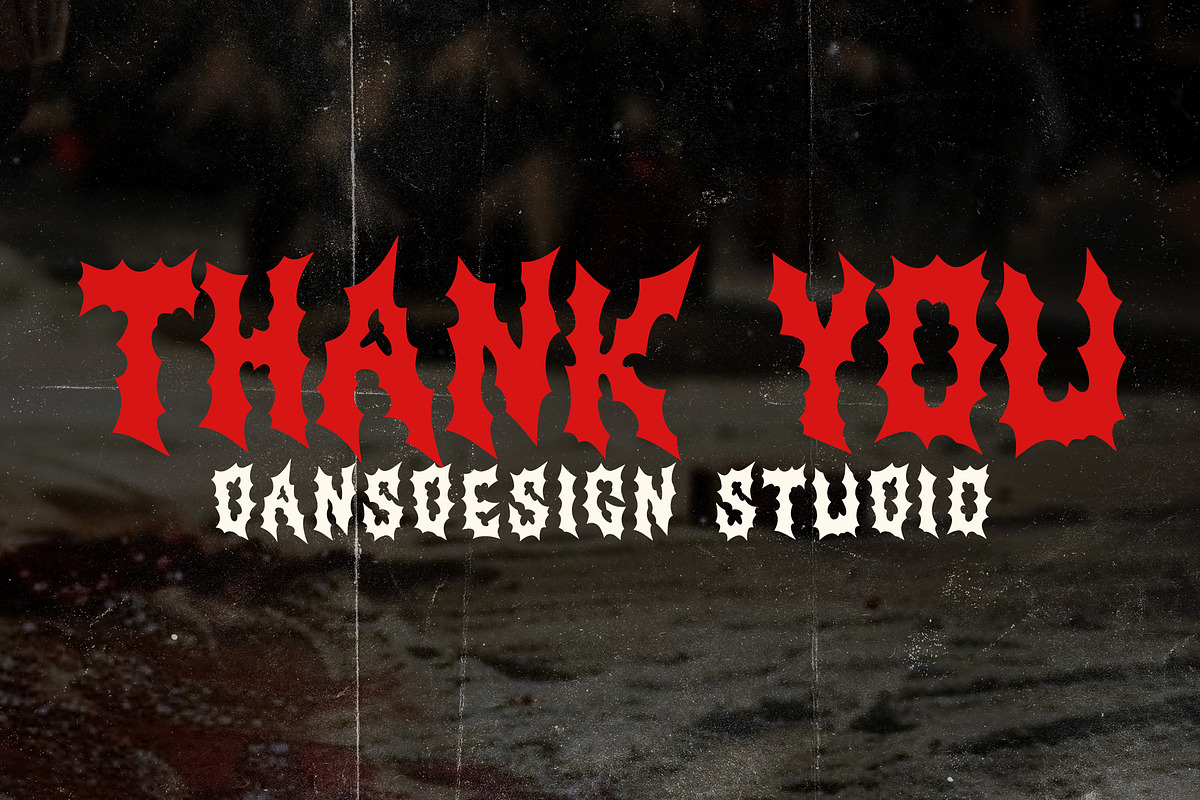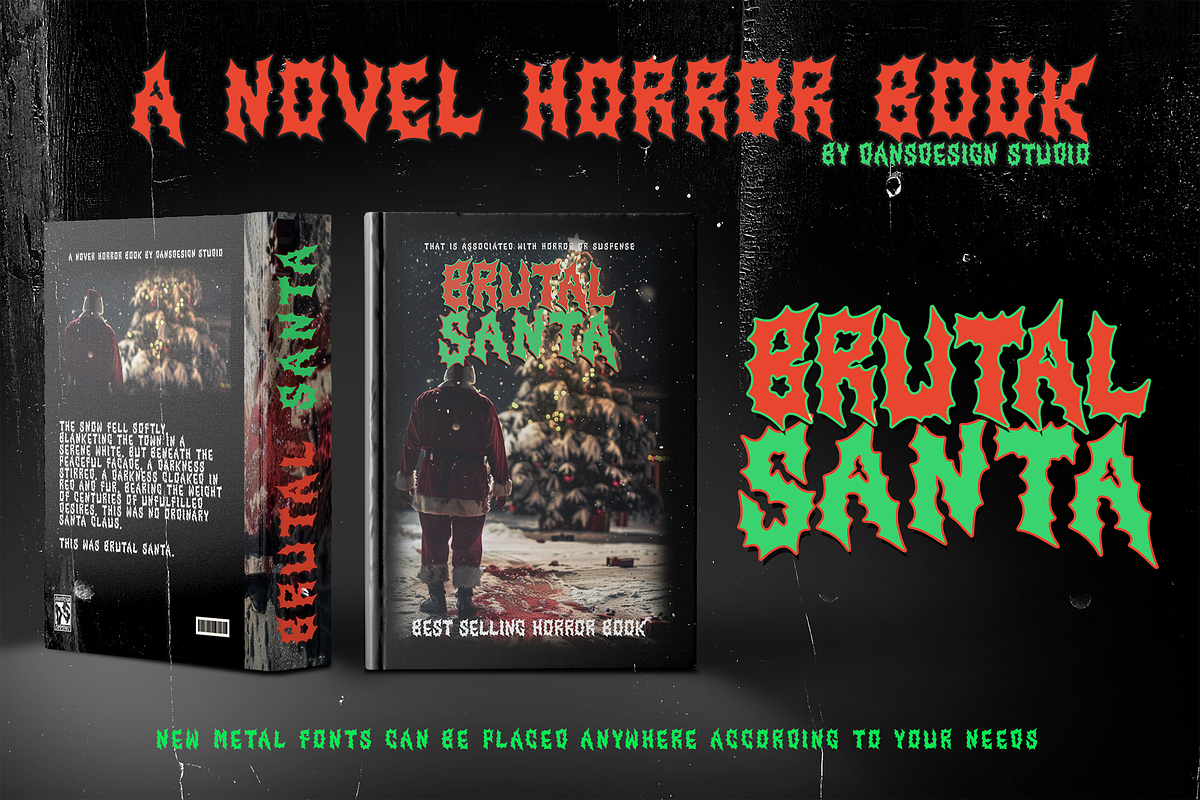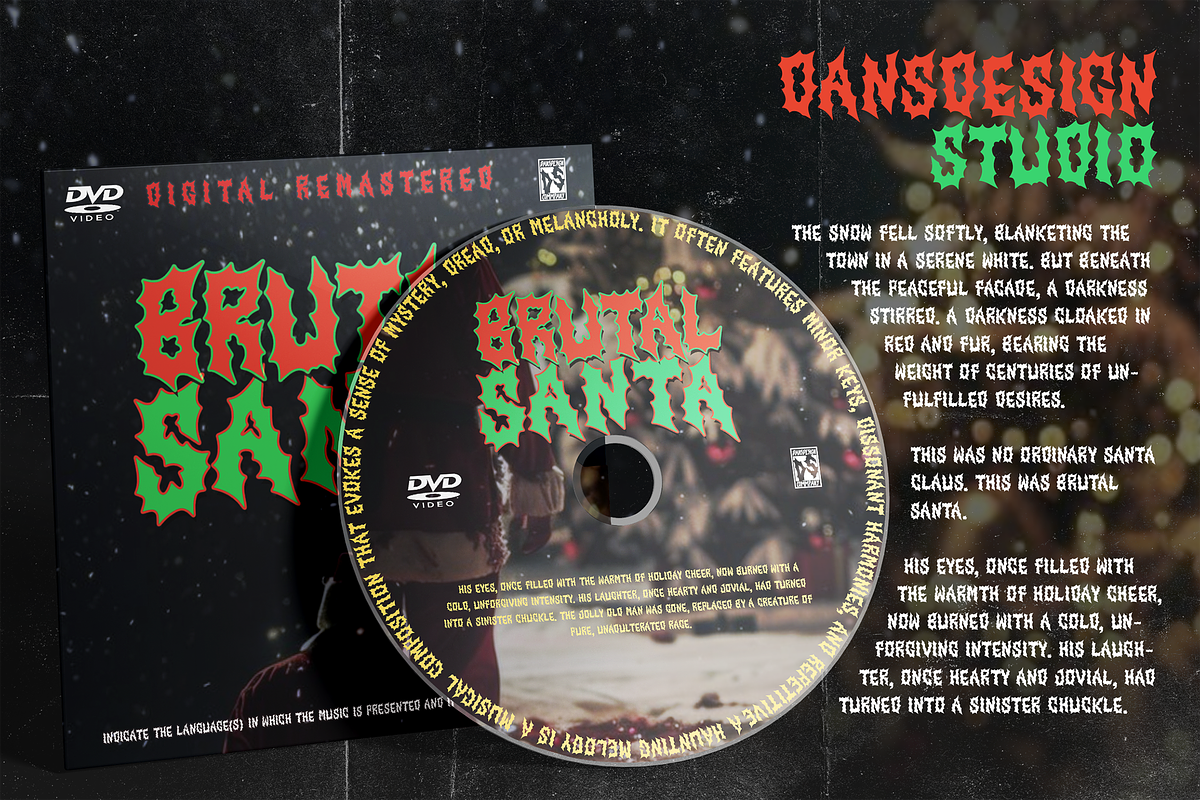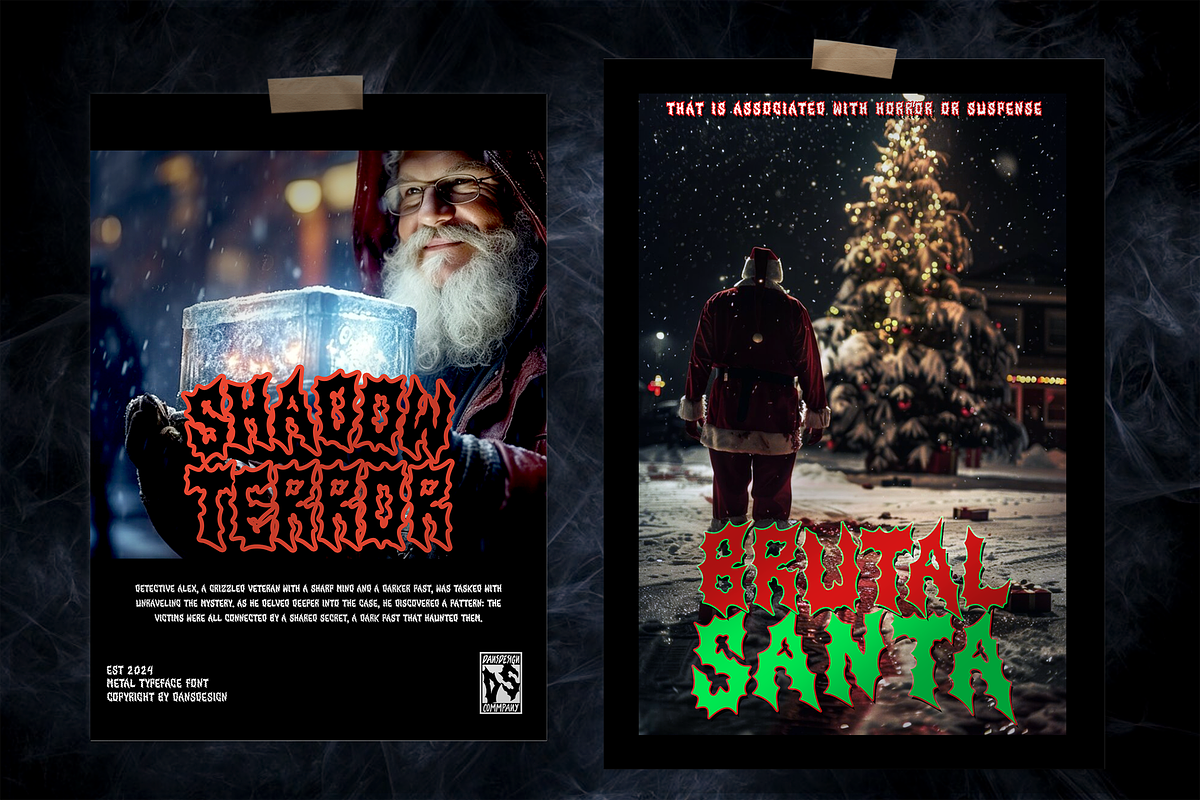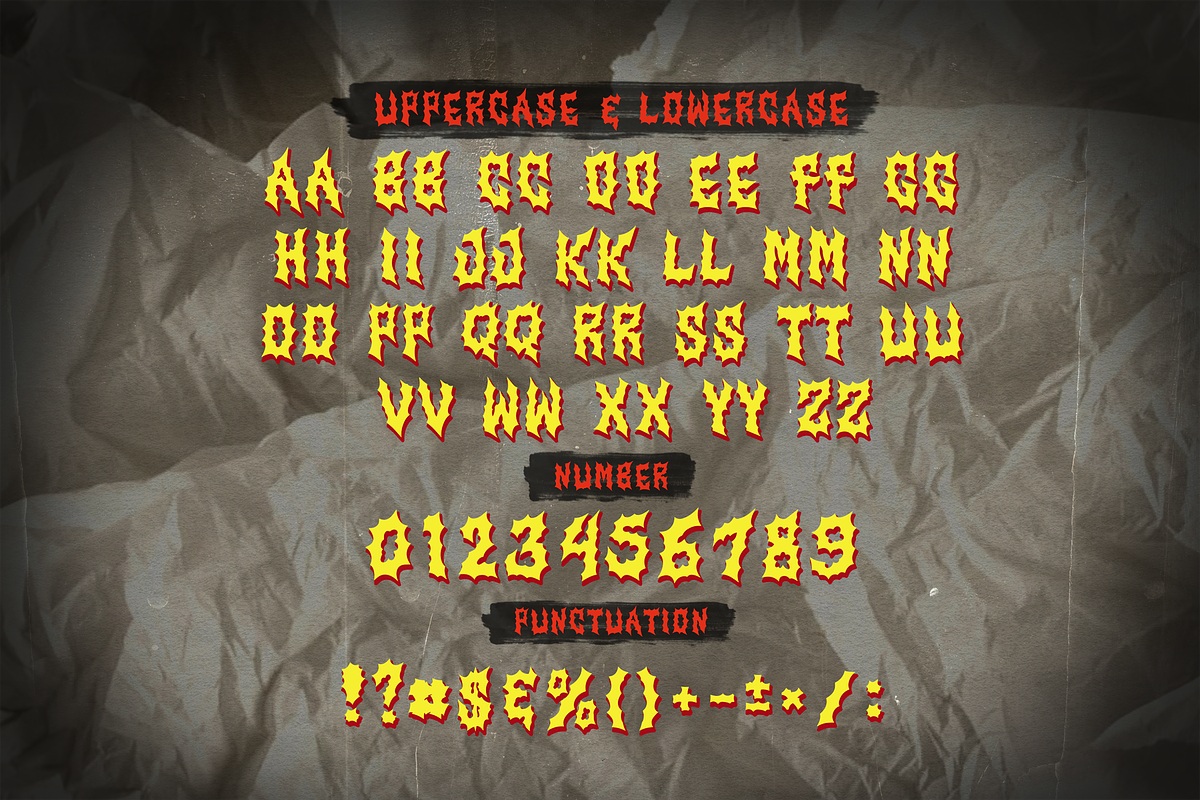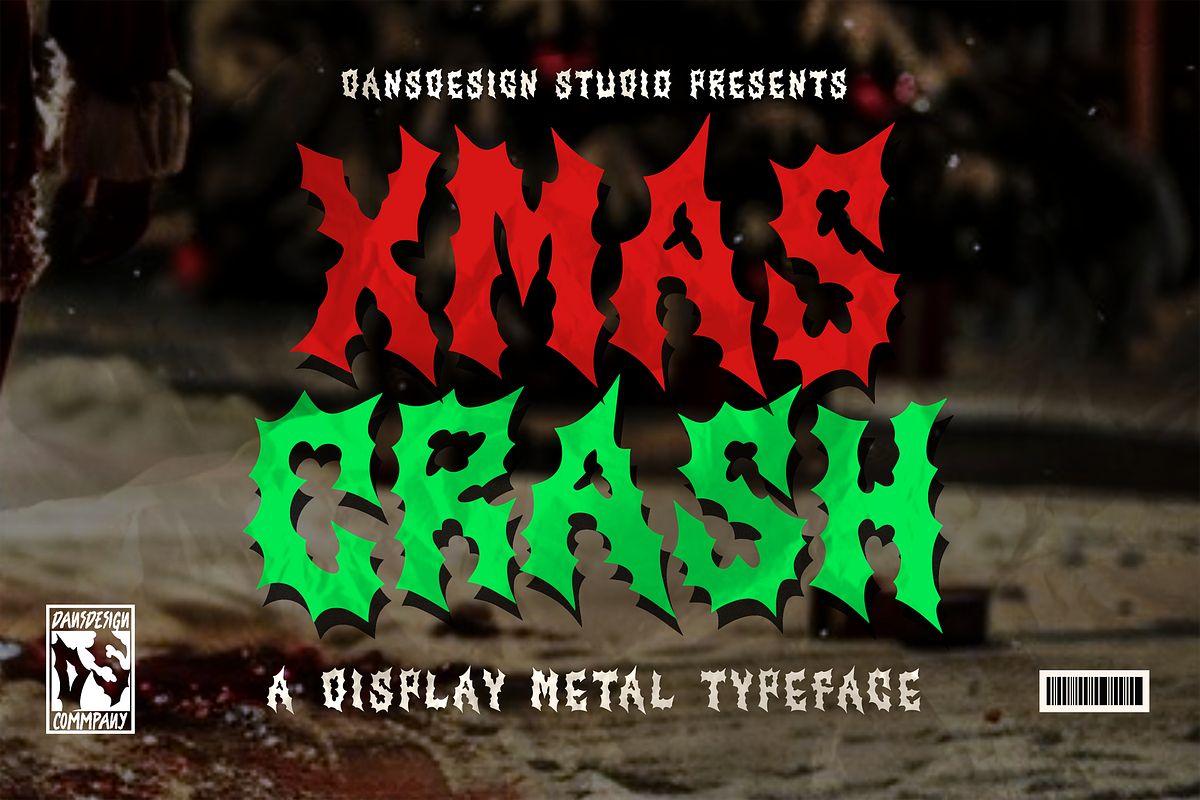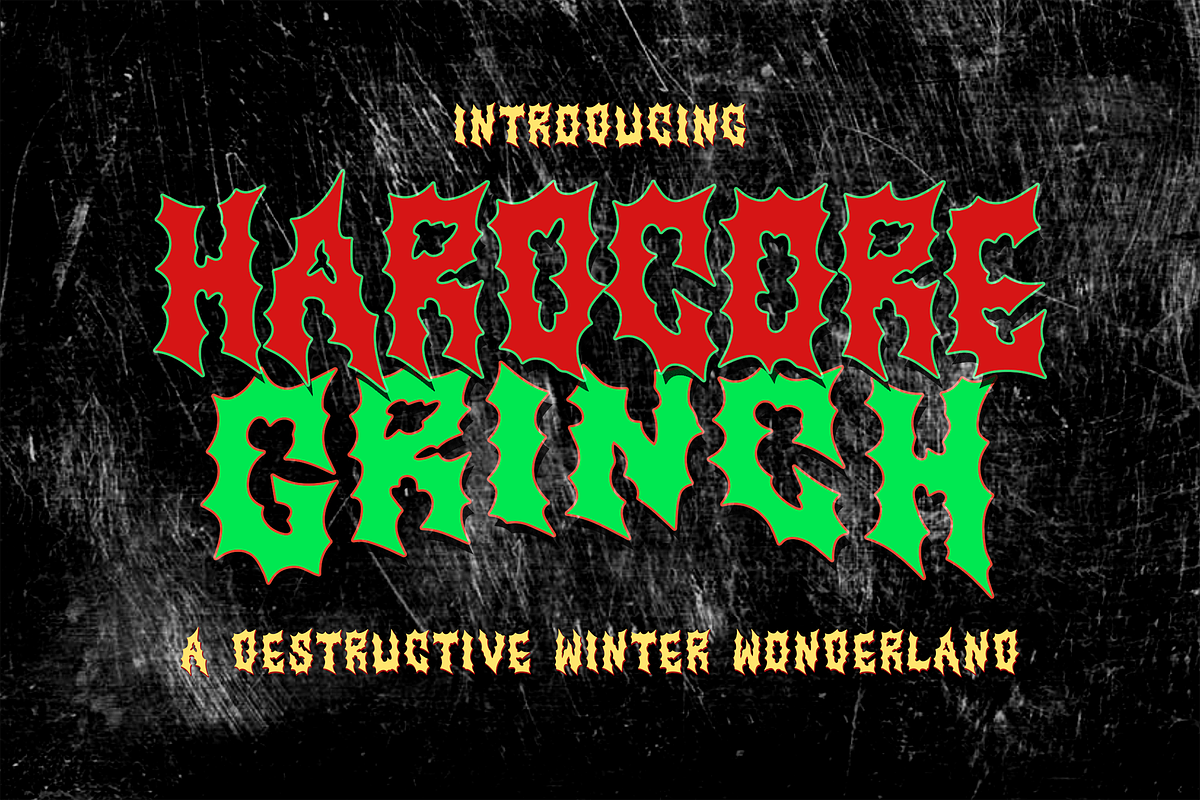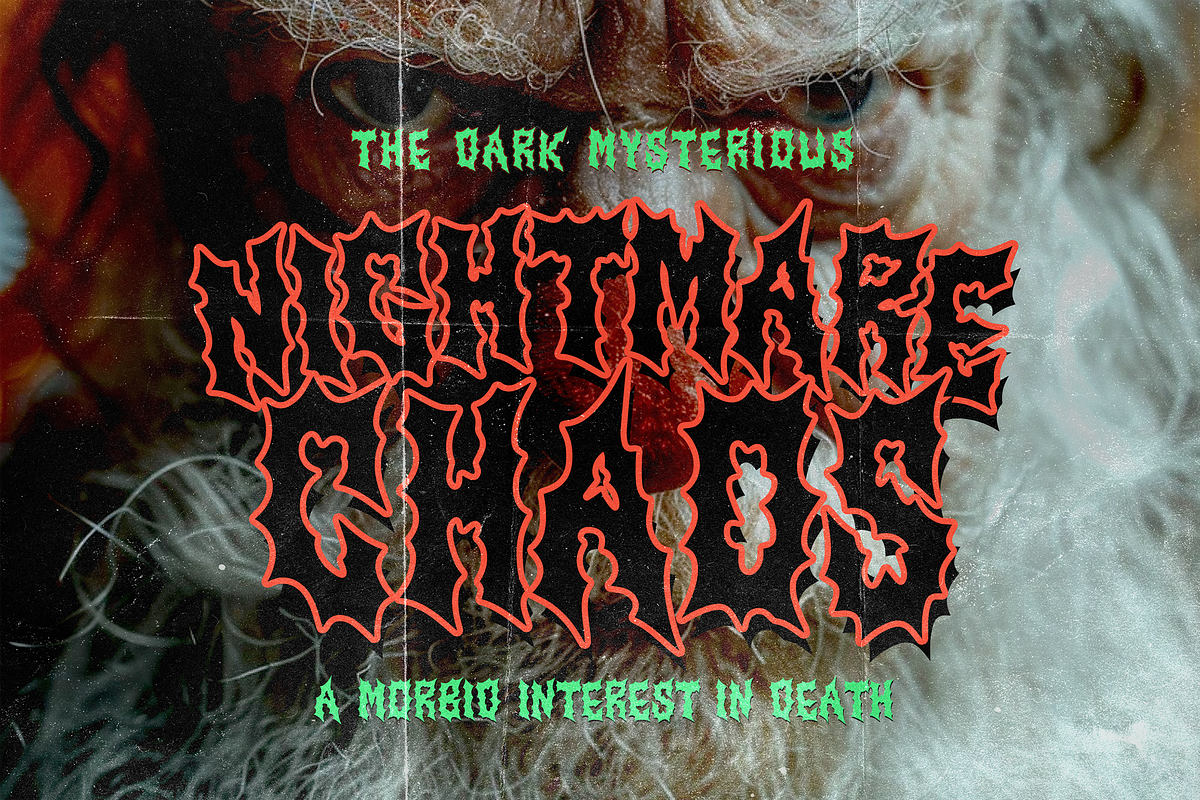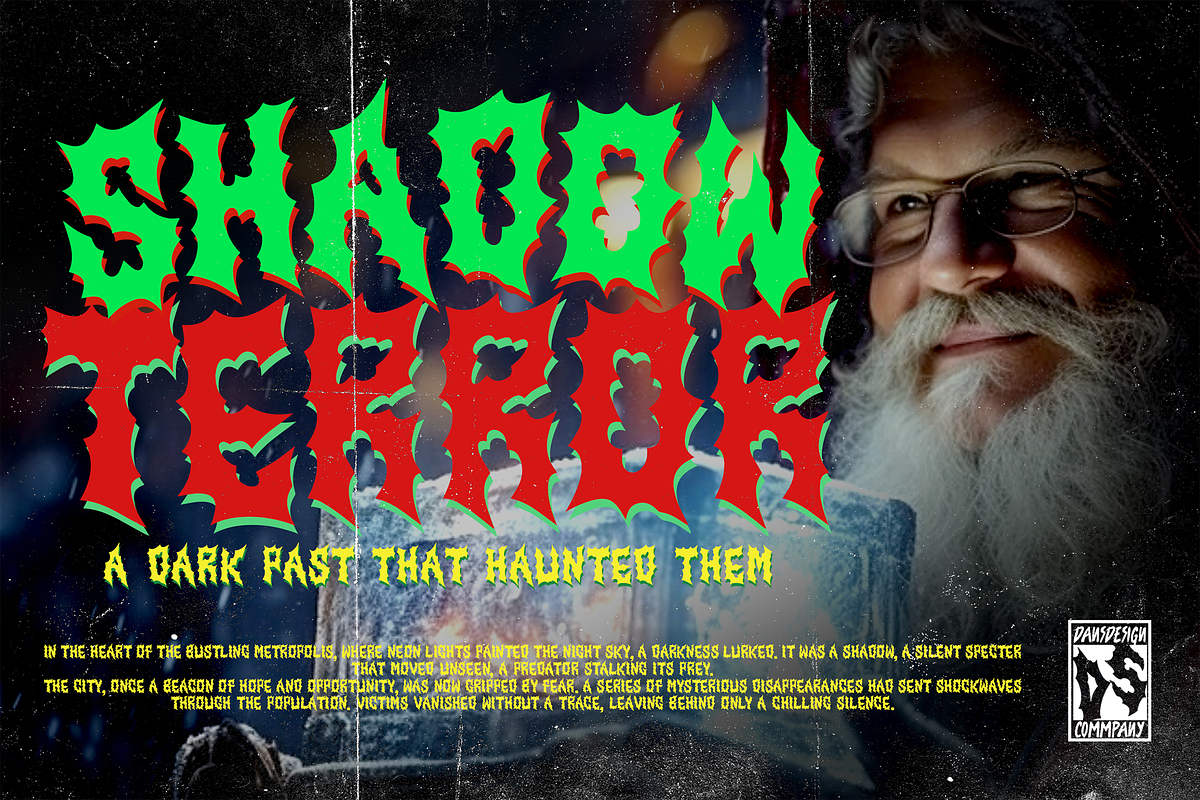
Xmas Crash Metal Horror Graffiti
Xmas Crash Metal Horror Graffiti Font
Xmas Crash Metal Horror Graffiti Font is a distinct, highly detailed. Marker Display Font. It would make a great choice for exquisite retro-urban designs, business branding, logos, Apparel designs, and more.